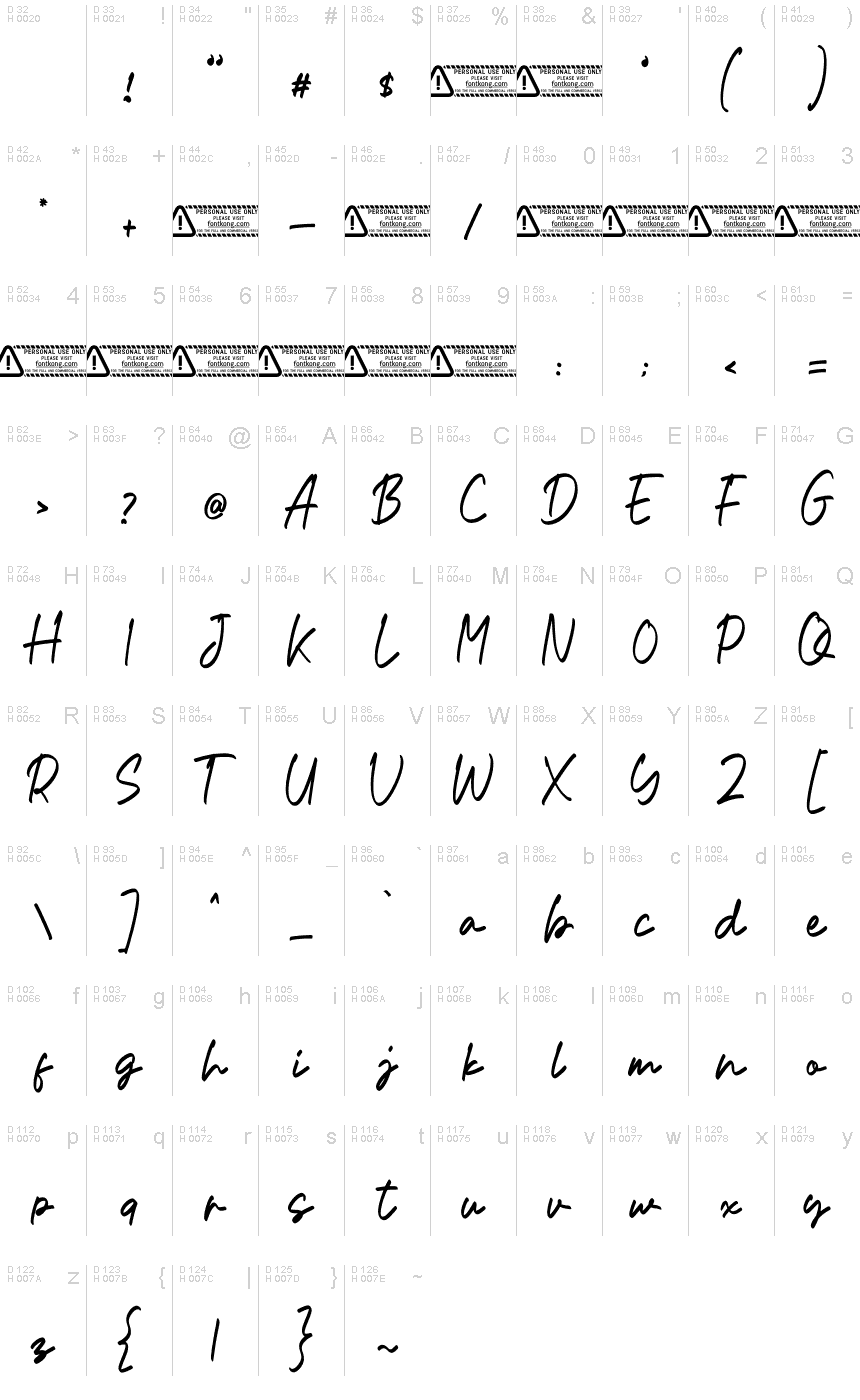
Anetthy
Anetthy, an exquisite creation by Kong Font, is a mesmerizing handwritten font that exudes elegance and sophistication. With its semi-light weight, this signature-style typeface adds a touch of finesse to any project. Perfect for wedding invitations, luxury branding, or high-end fashion magazines, Anetthy effortlessly captures attention and leaves a lasting impression. Its flowing curves and unique letterforms bring an air of grace to your designs. Let Anetthy elevate your next project with its refined charm and timeless appeal.